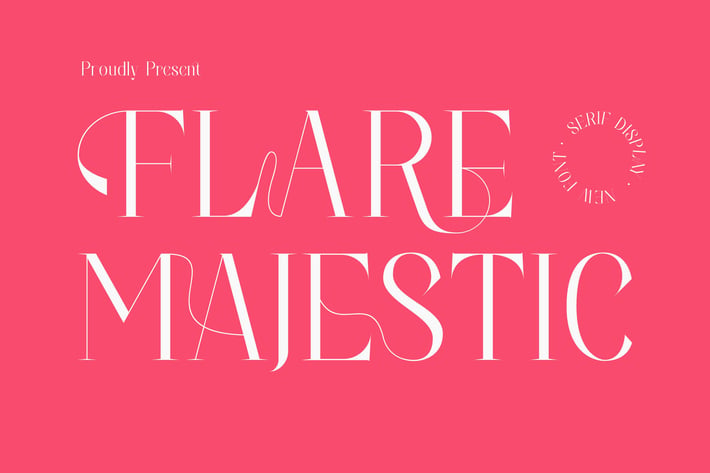
Flare Majestic Serif Font
🌟 Timeless Elegance with a Majestic Serif Display Font 🌟
Looking for a font that exudes sophistication and class? Introducing Flare Majestic, a striking serif display font designed to add a touch of grandeur to any project. With its refined curves and bold presence, this font is perfect for making a statement while maintaining a sense of classic elegance.
✨ Key Features:
✔ Elegant & Timeless Design – Perfect for high-end branding, editorial layouts, invitations, and more.
✔ Versatile & Customizable – Comes with alternate characters and ligatures for a unique, personalized touch.
✔ Multilingual Support – Includes international characters for global usability.
✔ Sharp & Clear Display – Stunning on both print and digital platforms, ensuring maximum impact.
💡 Ideal for:
- Luxury Branding & Logos
- Editorial & Magazine Titles
- Wedding Invitations & Stationery
- Product Packaging & Labels
- Website Headers & Social Media Content
Make your designs stand out with Flare Majestic – a font that speaks of sophistication, refinement, and timeless beauty.